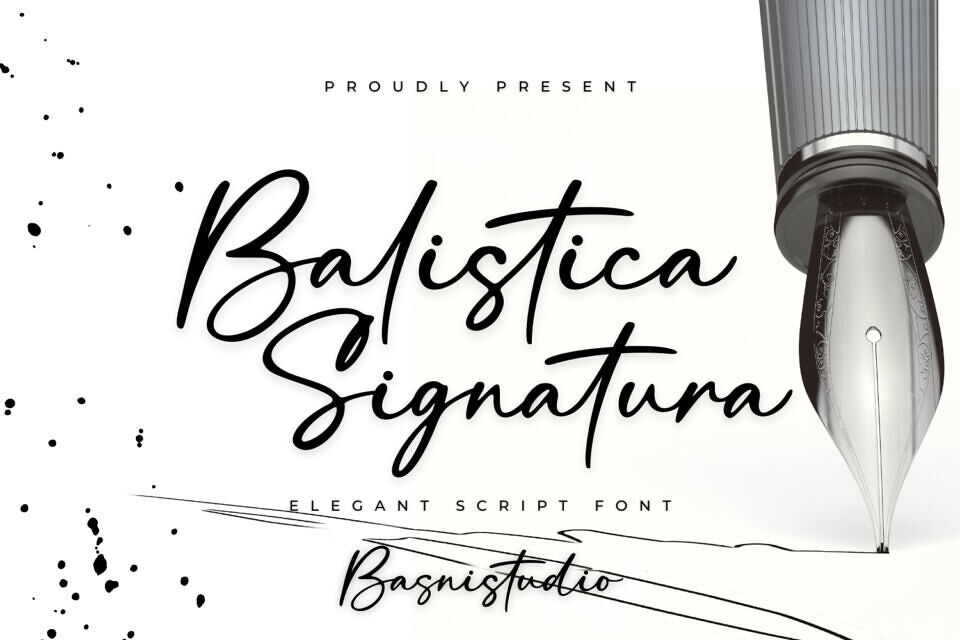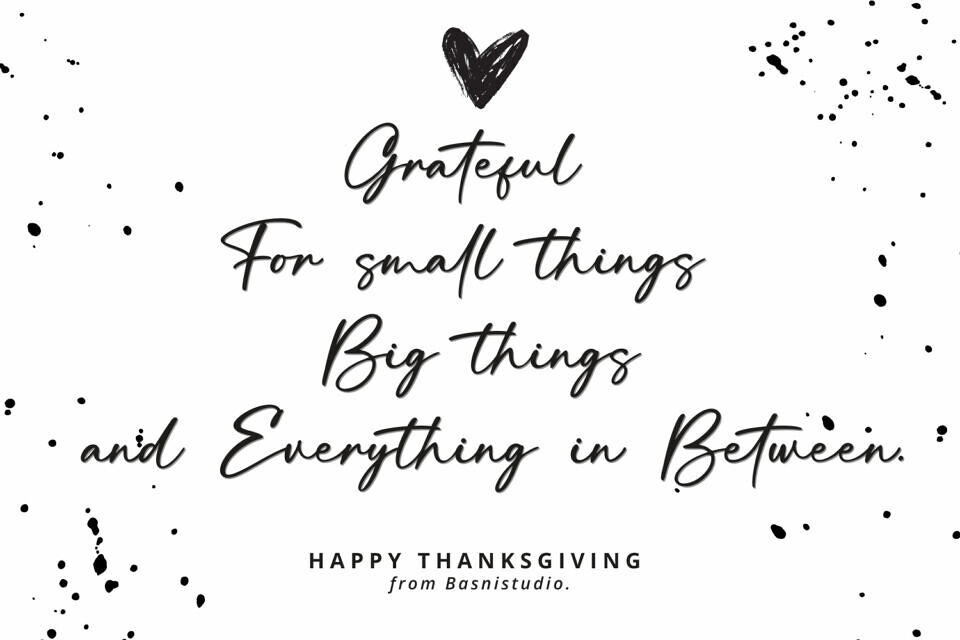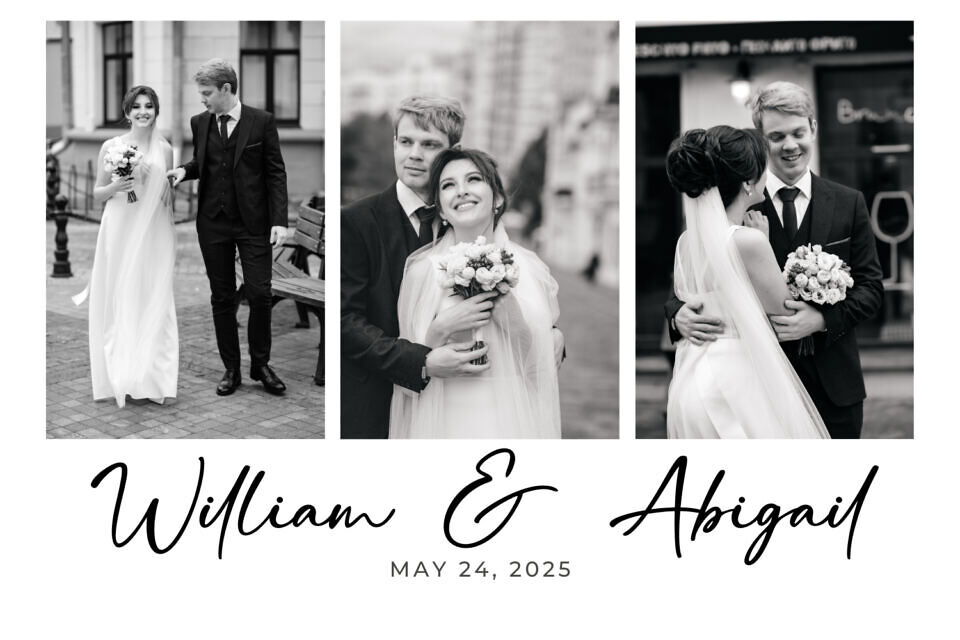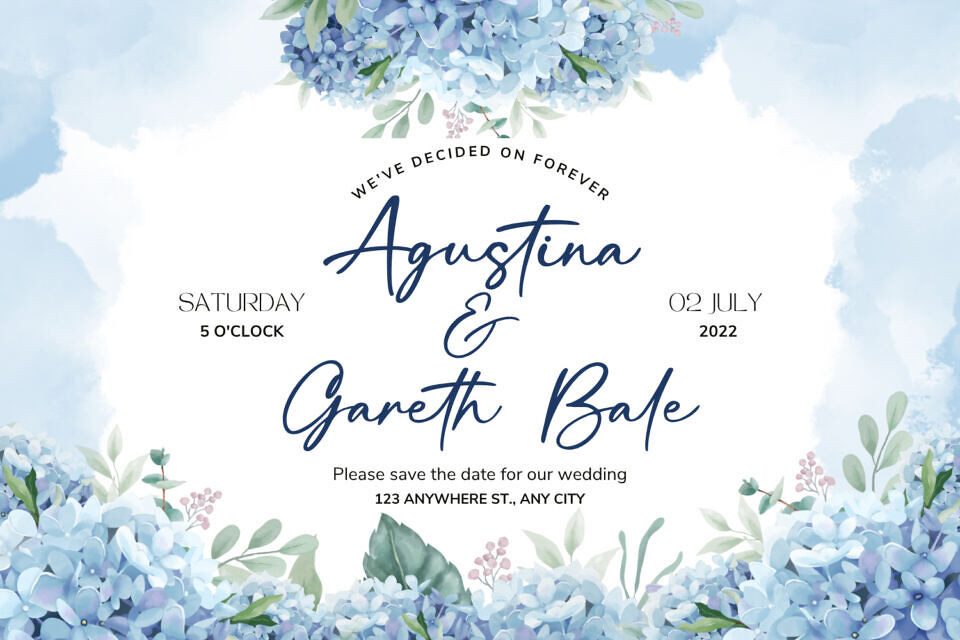
Balistica Signatura Font
Balistica Signatura is an elegant script font that adds a elegant, versatile touch to everything from branding and social media to invitations and packaging.
For crafting a powerful brand identity or a truly standout logo, Balistica Signatura provides the crucial creative edge you need. Its refined curves and distinctive letterforms offer a sophisticated aesthetic, perfect for adding a touch of class and personality to any project.
Designed by: Basnistudio